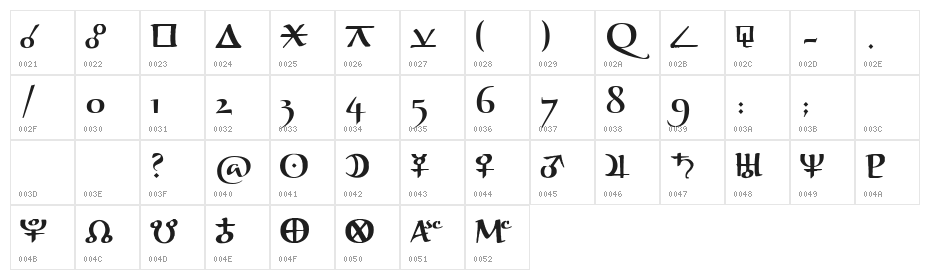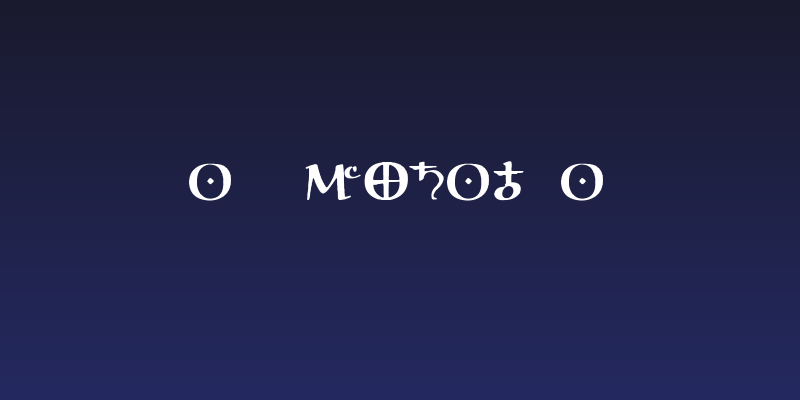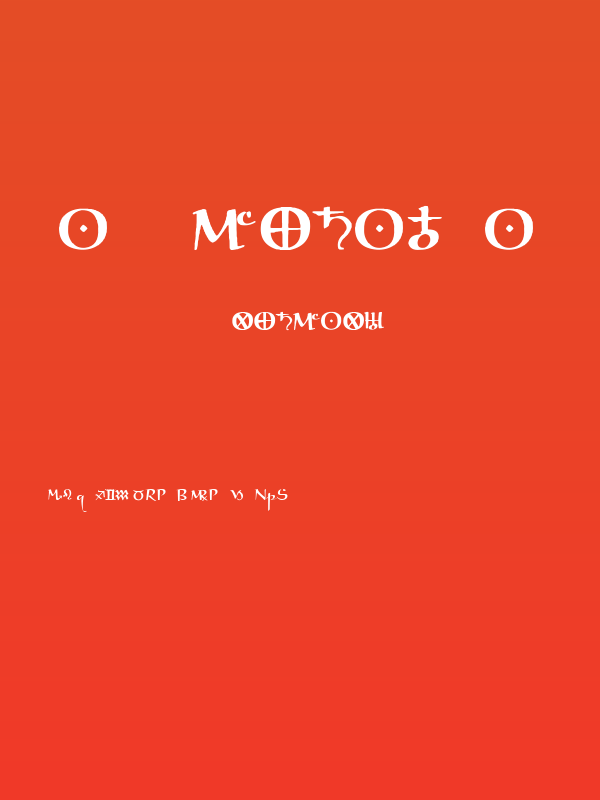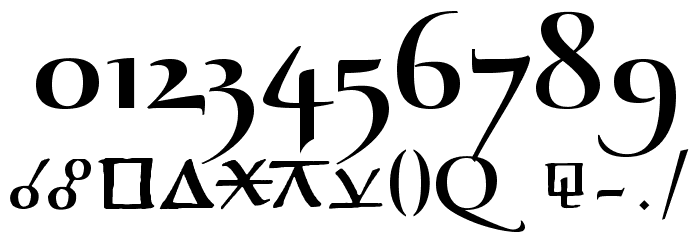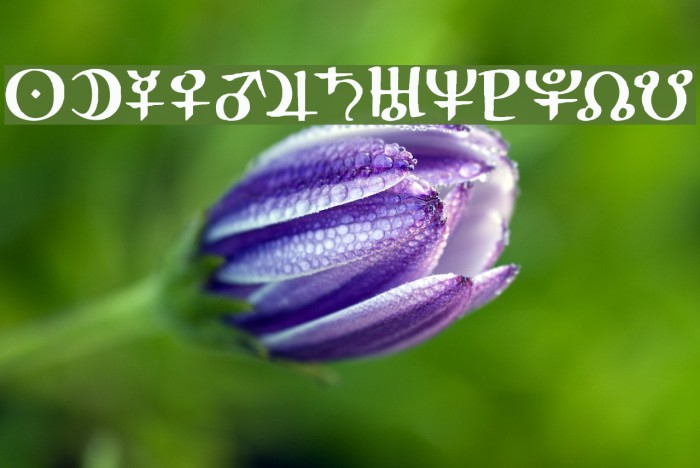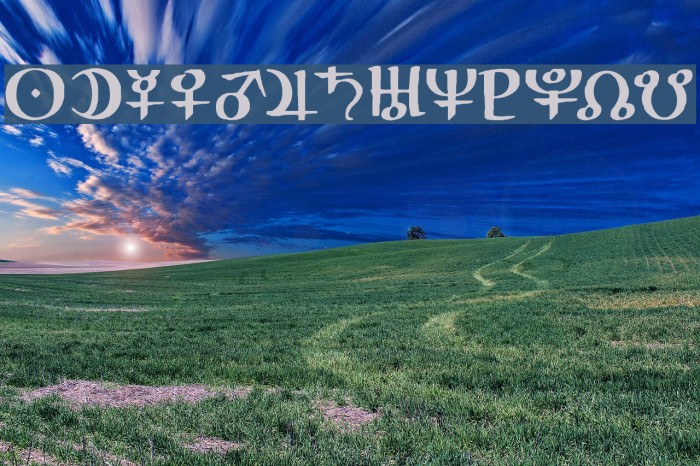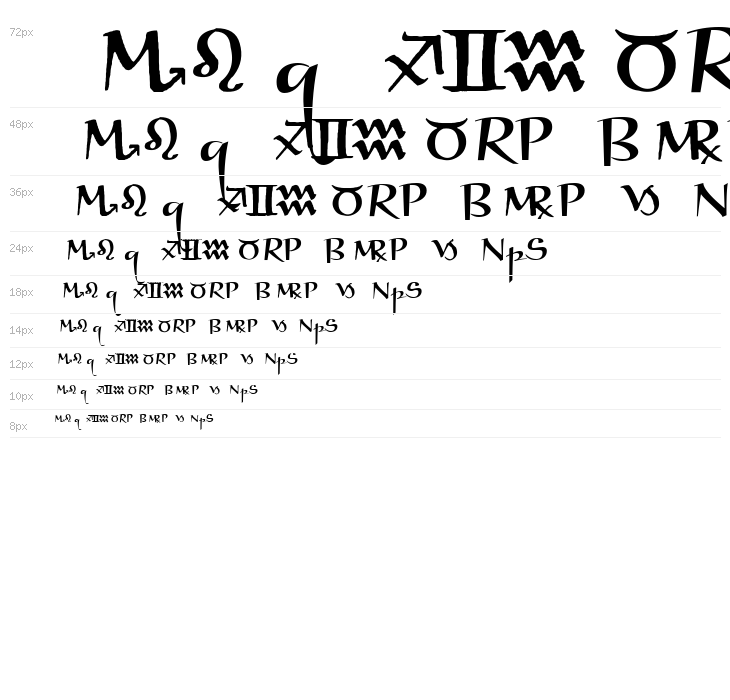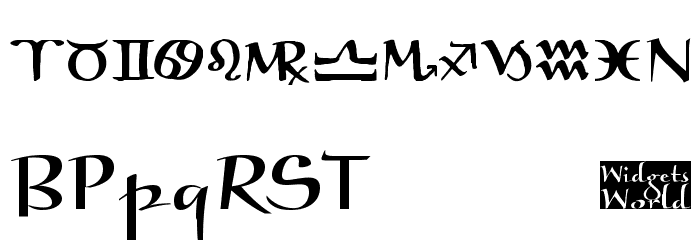
AstroGanza Font
AstroGanza Description
This font features a unique and mystical design, characterized by its decorative and symbolic elements. The characters are crafted with a blend of curves and sharp angles, giving them an enigmatic and ancient feel. The uppercase letters are particularly ornate, with some incorporating celestial and astrological symbols. The lowercase letters maintain a consistent style, though they are slightly less elaborate. Numbers and special characters follow the same thematic design, enhancing the overall cohesive look. The font's distinctiveness makes it suitable for projects that require a touch of mystery or fantasy.
ASTROGANZA UPPERCASE
ASTROGANZA LOWERCASE
ASTROGANZA OTHER CHARS
| Overall Style | Mystical, Enigmatic, Decorative |
| Use Case | Logos, Headlines, Themed Designs |
| Proposed Projects | Ideal for fantasy book covers, mystical event invitations, or themed merchandise designs. |